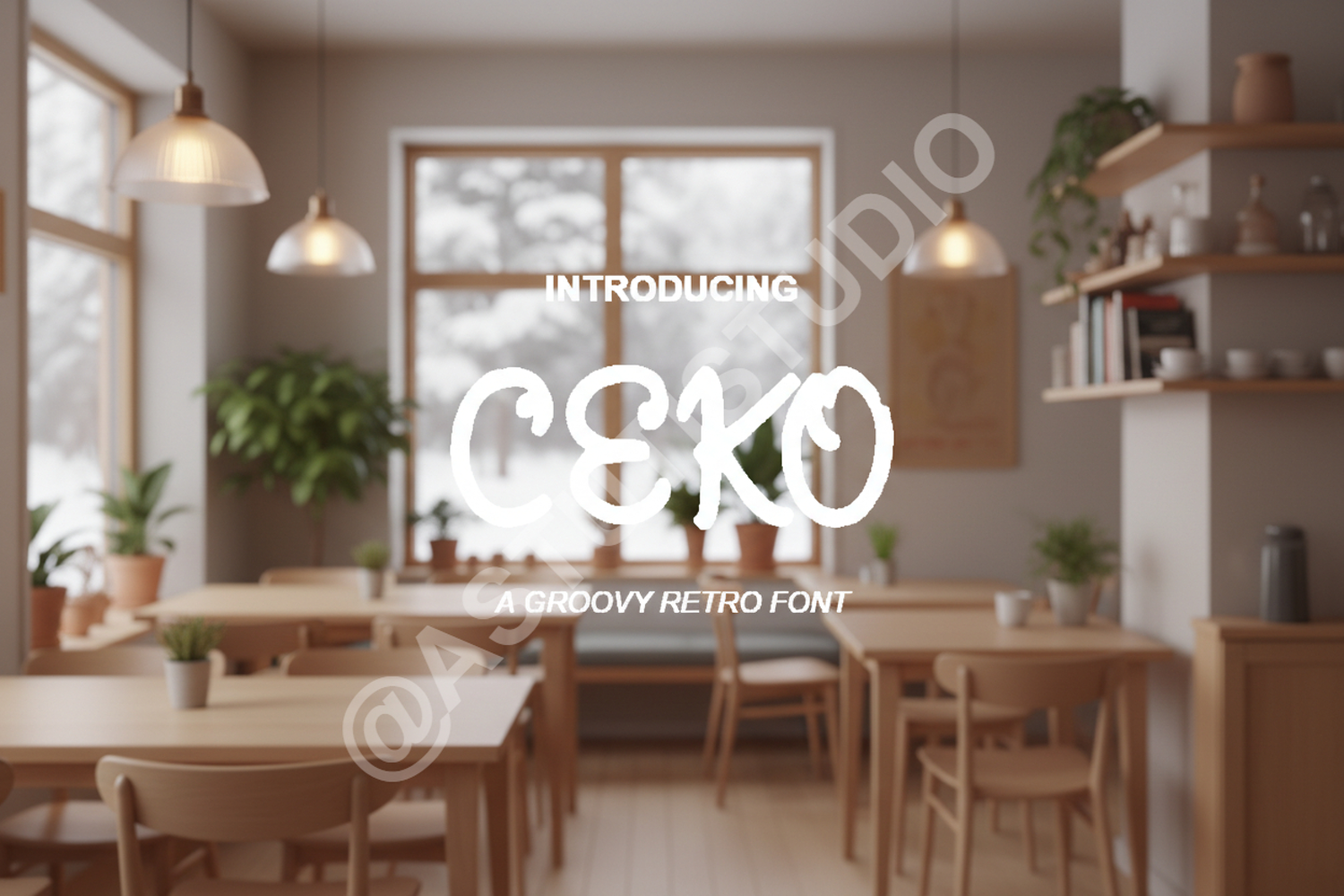
Ceko - Modern Geometric Sans Serif
Ceko
Ceko is a premium geometric sans serif font that embodies modern sophistication and timeless clarity. Crafted with precision, this typeface offers a balanced aesthetic that works seamlessly across digital and print mediums. Whether you are building a high-end brand or designing a clean user interface, Ceko provides the professional foundation your project deserves.